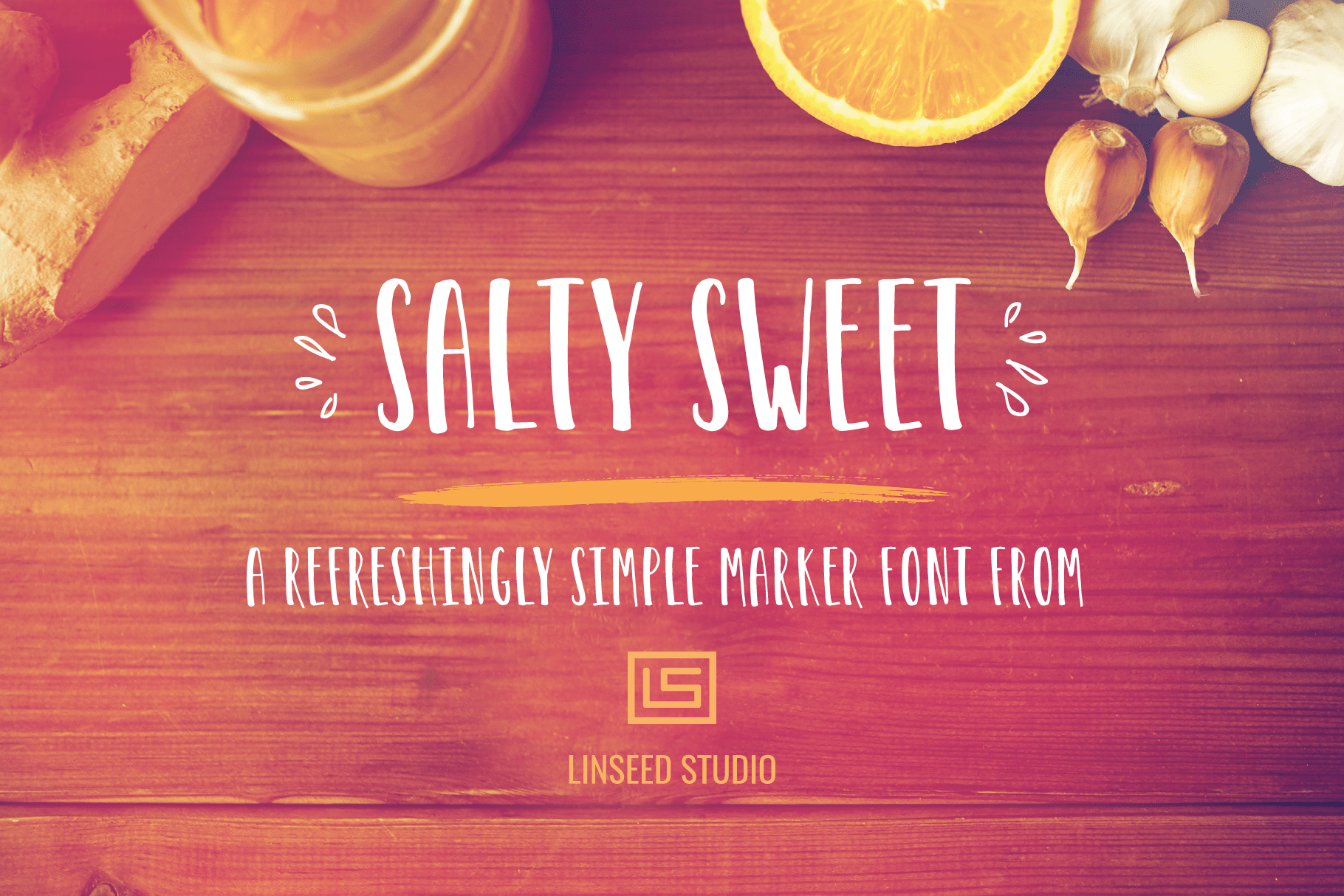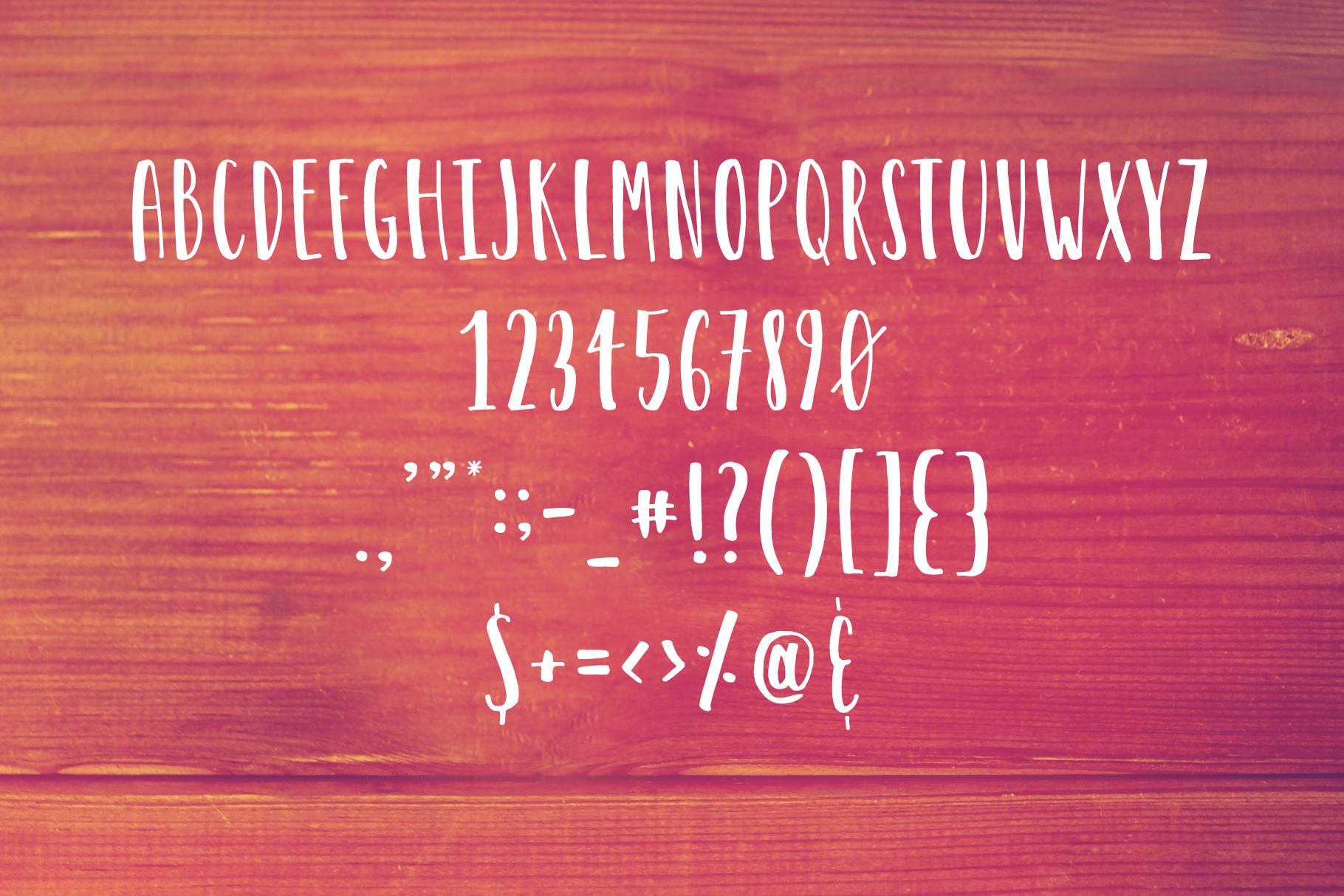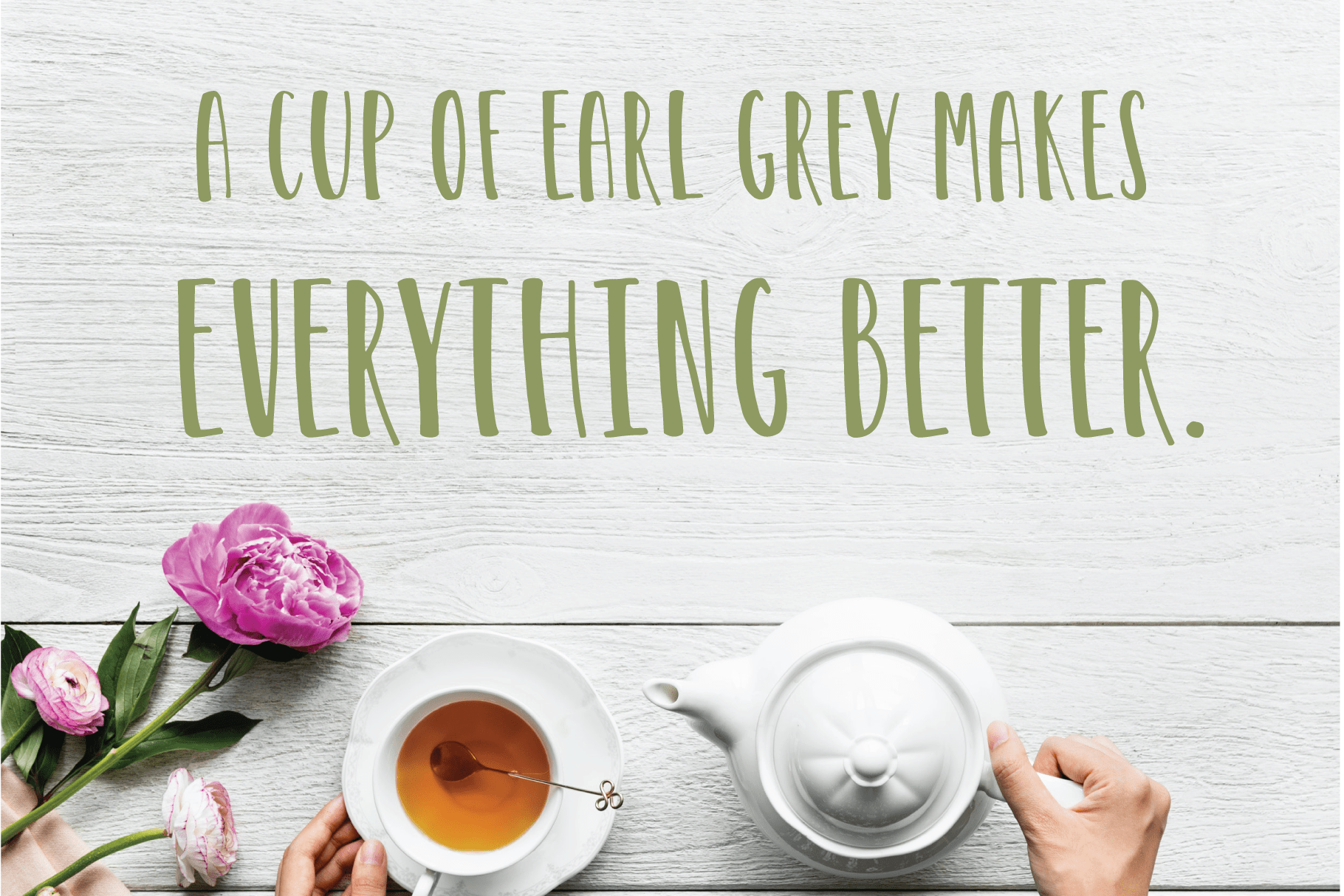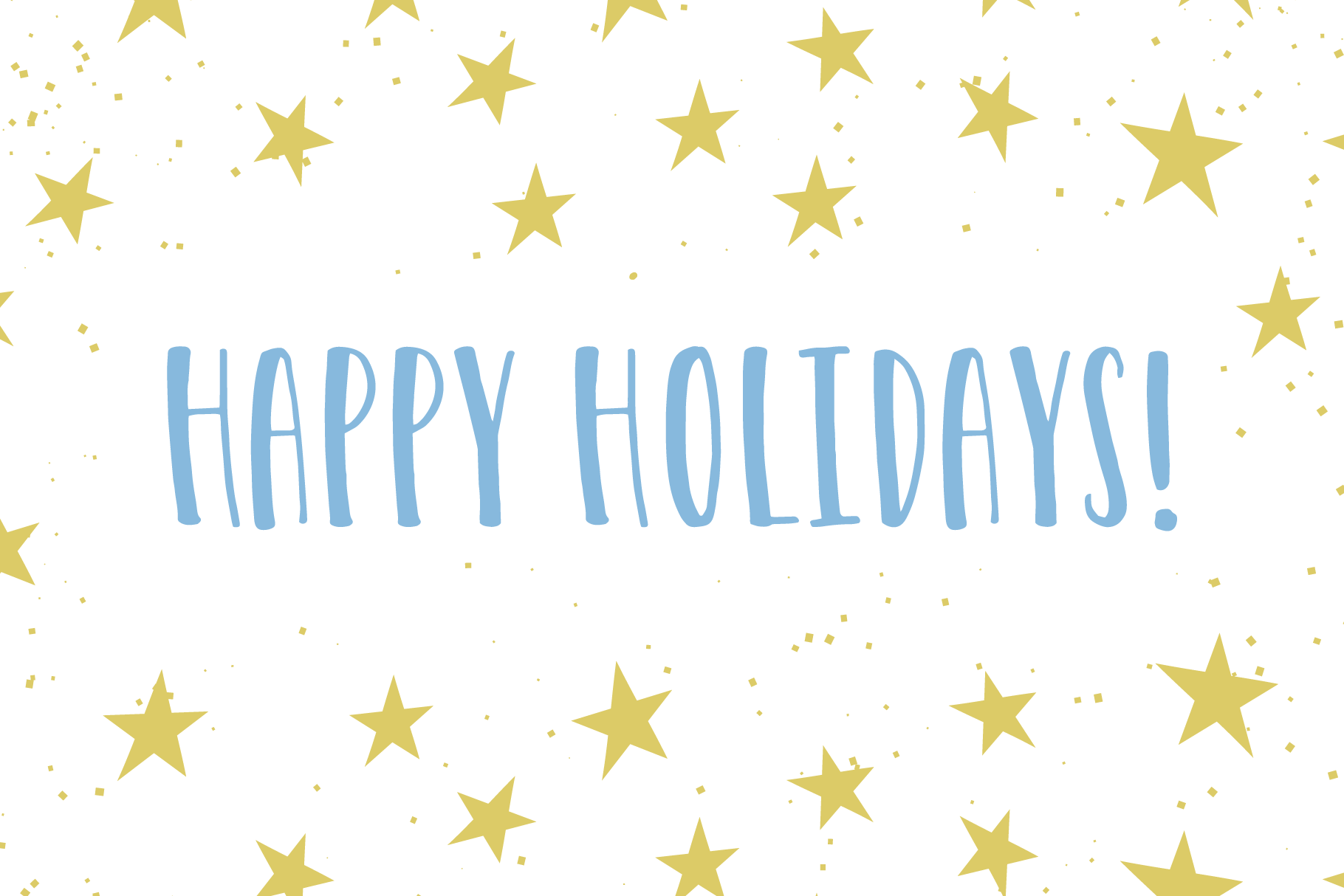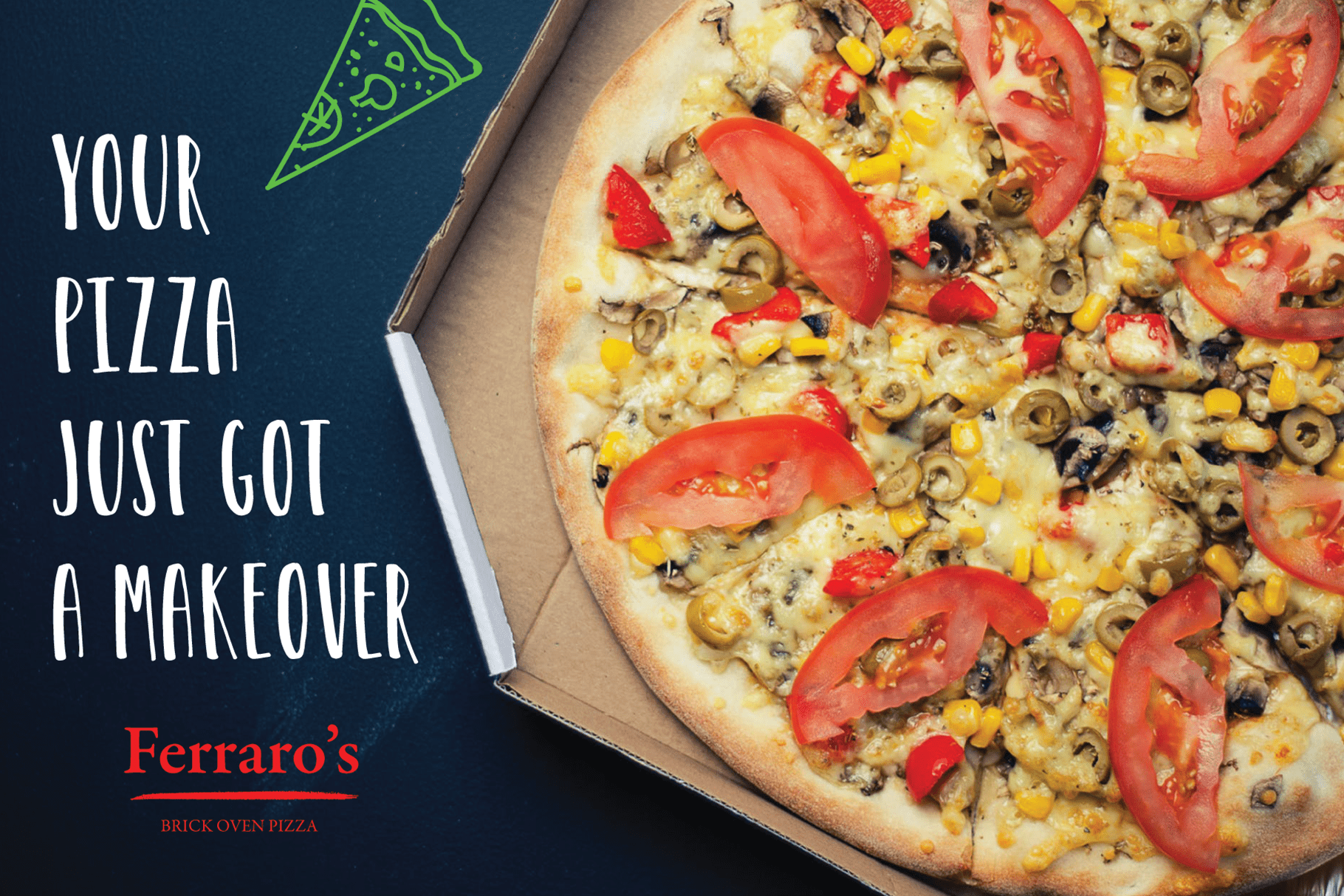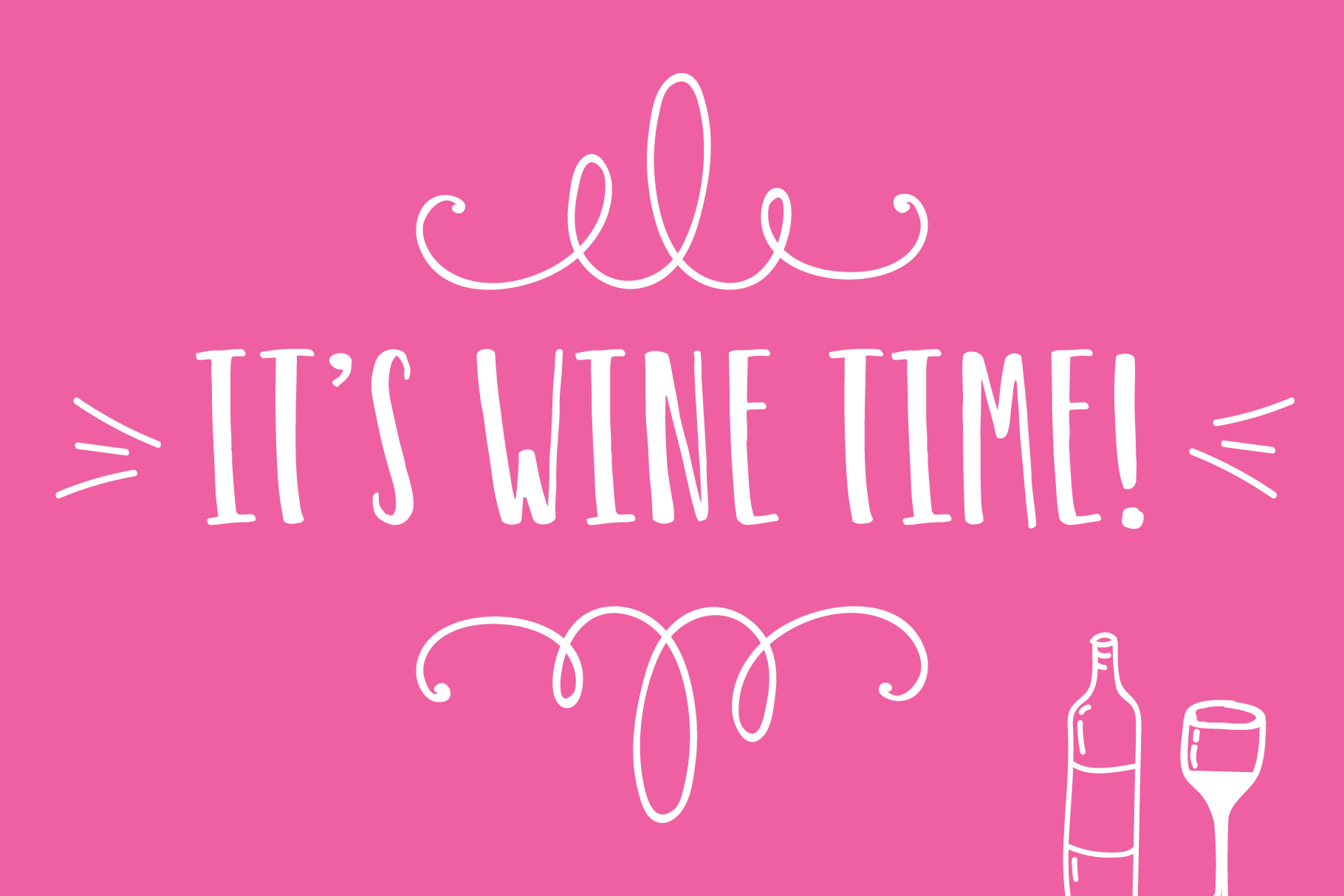
Salty Sweet Marker Font
Inspirational Quote
Happy Holidays
Pizza advertisement
Humorous text
Salty Sweet Marker Font
Salty Sweet is a hand-drawn marker font in OTF and WOFF formats.  It’s perfect for projects that call for a light hearted typeface like holiday cards, food / drink advertising, inspirational quotes and more!